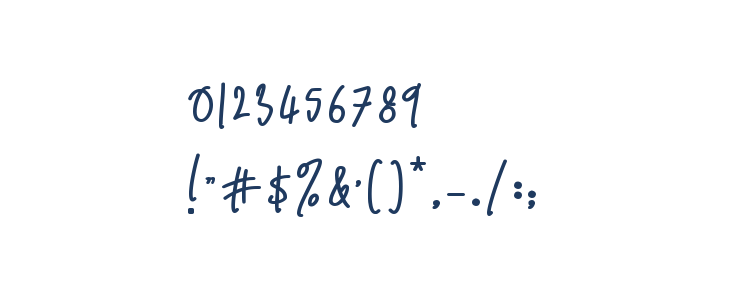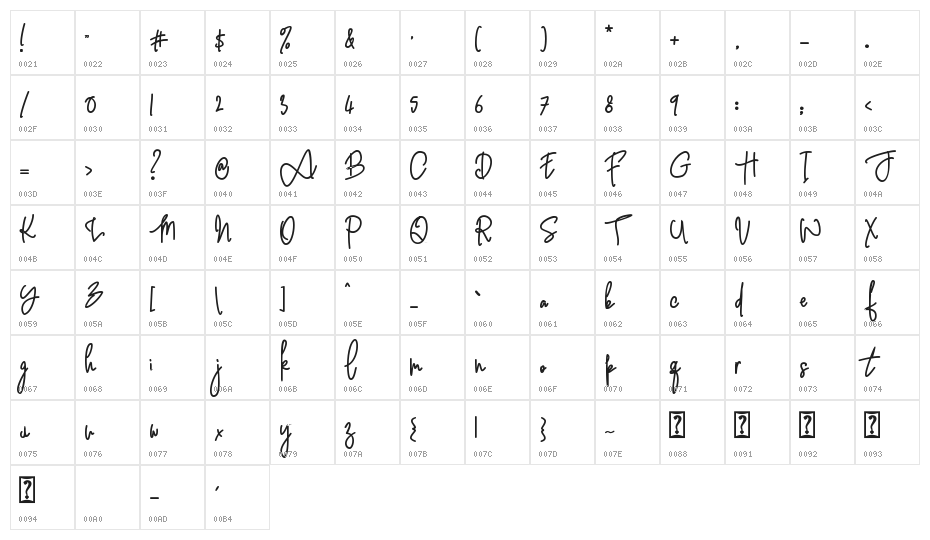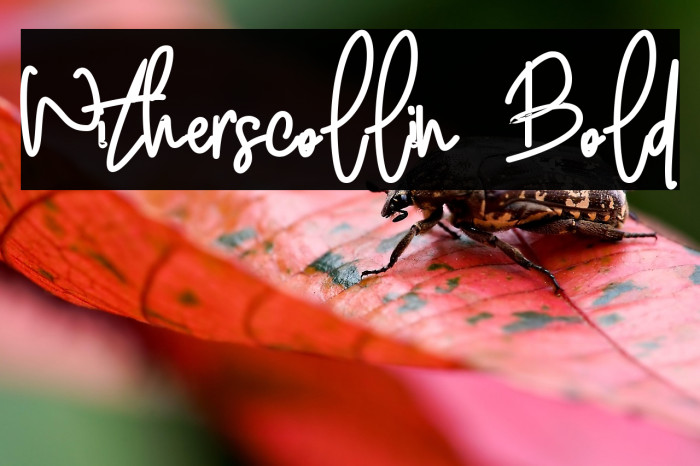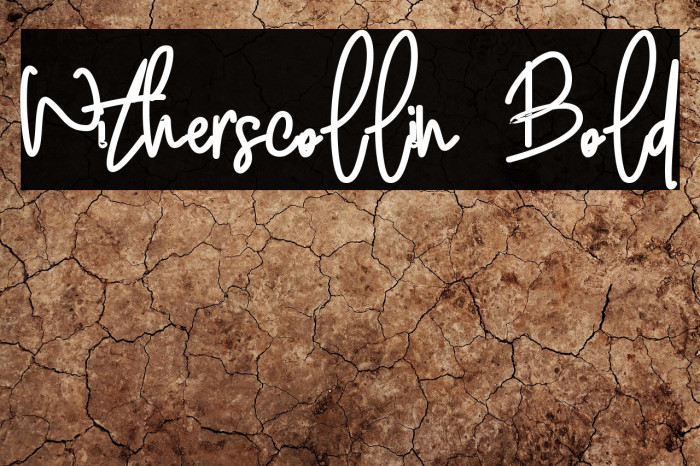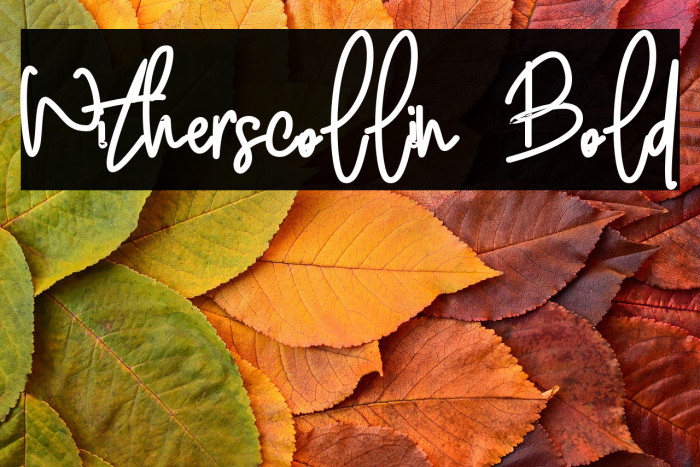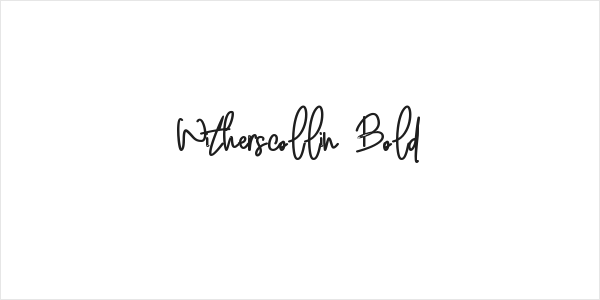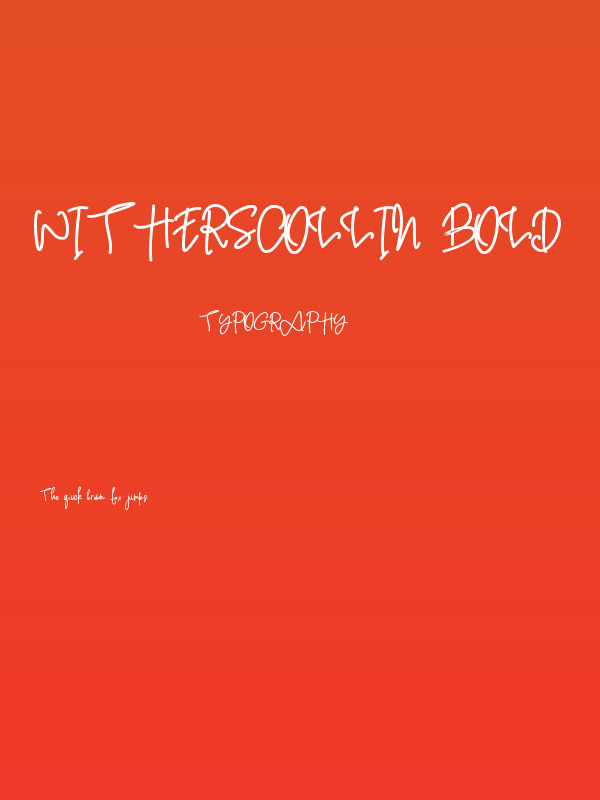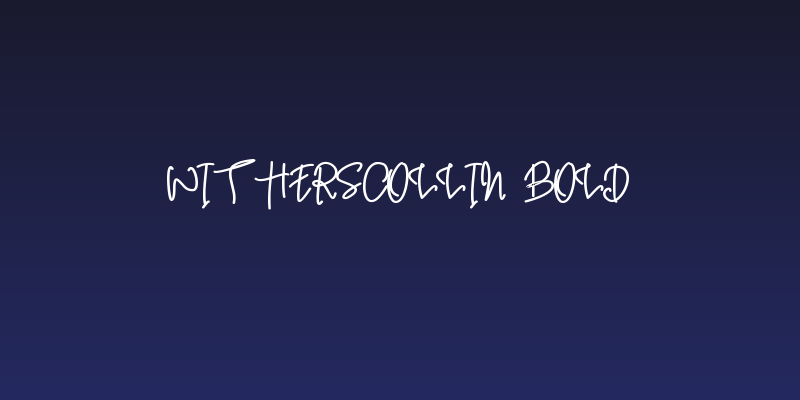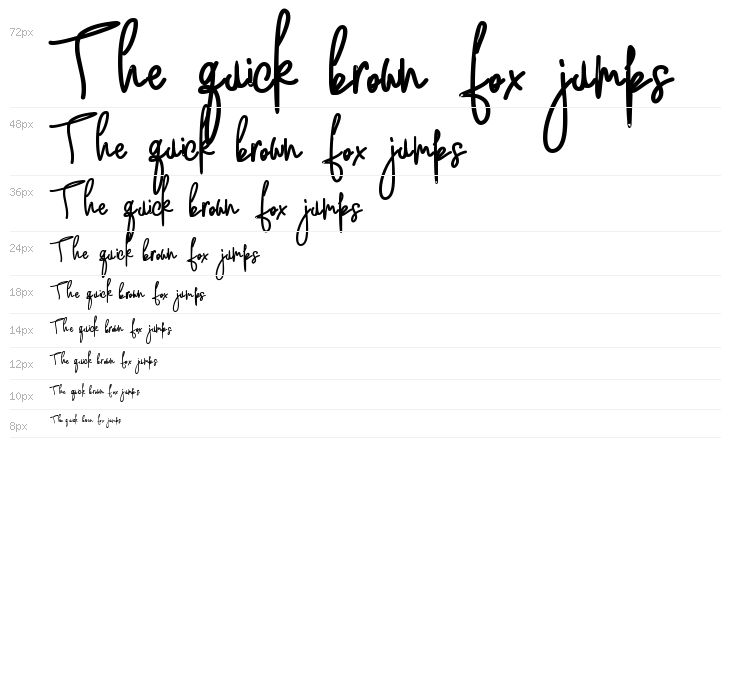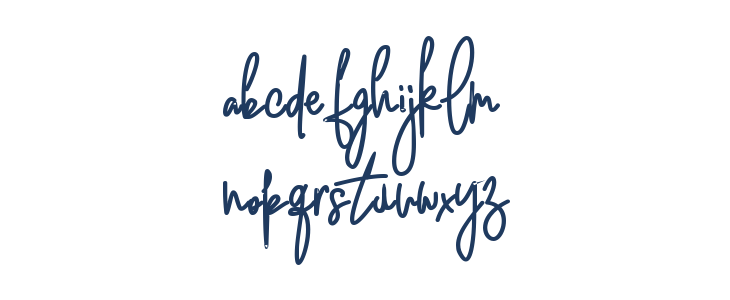
Witherscollin Bold Font
Witherscollin Bold Description
This font features a lively and energetic handwritten style, characterized by its fluid and dynamic strokes. The uppercase letters exhibit a playful and whimsical nature, with varying heights and angles that add a sense of movement. The lowercase letters maintain this energetic flow, with some characters extending below the baseline, enhancing the handwritten feel. The numerals are consistent with the overall style, offering a cohesive look. Special characters are creatively integrated, maintaining the font's unique personality. This font is perfect for projects that require a personal touch, such as invitations, greeting cards, or creative branding.
| Proposed Projects | Ideal for invitations, greeting cards, creative branding, and personal projects. |